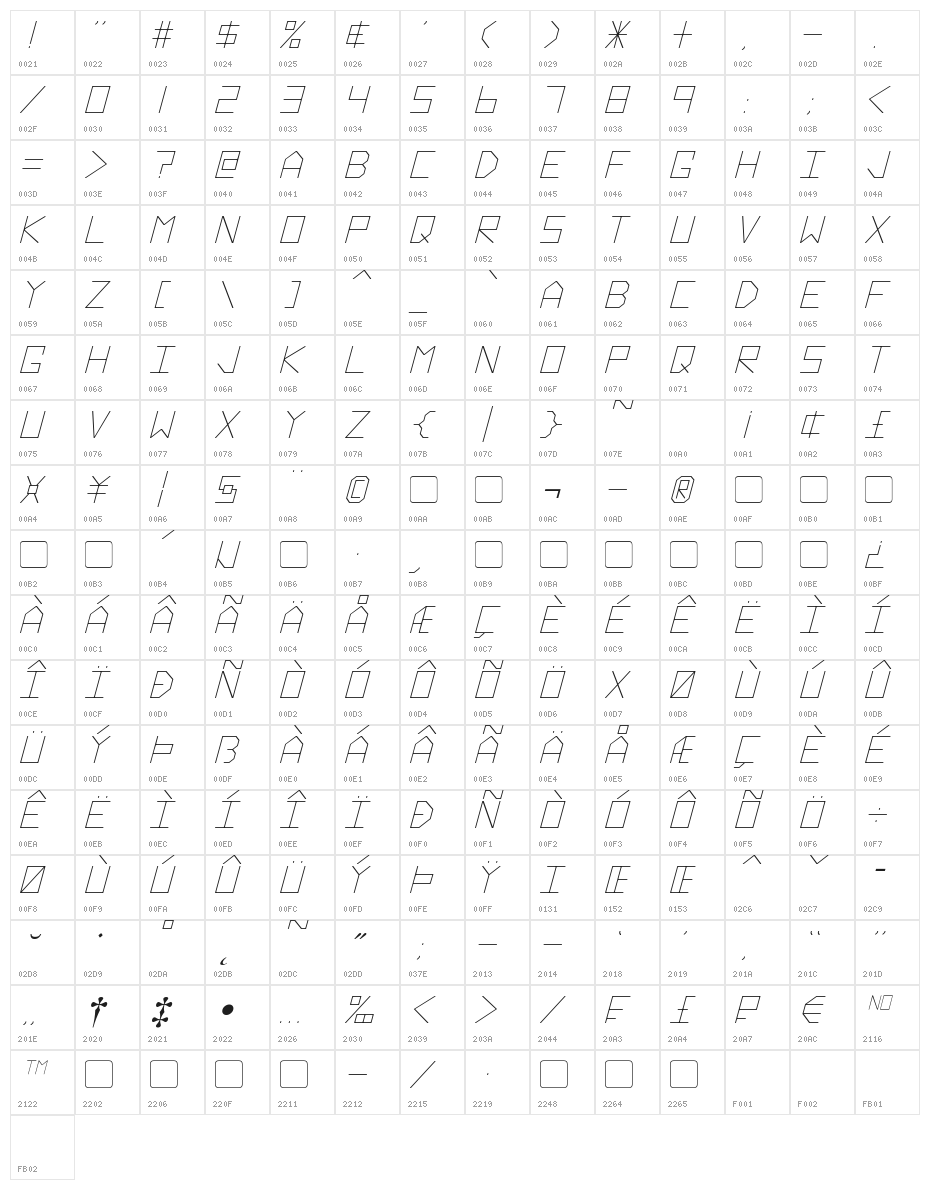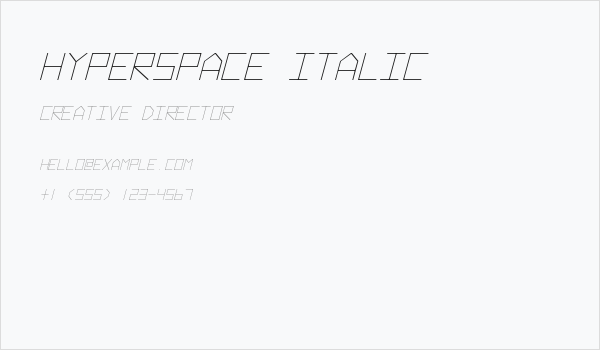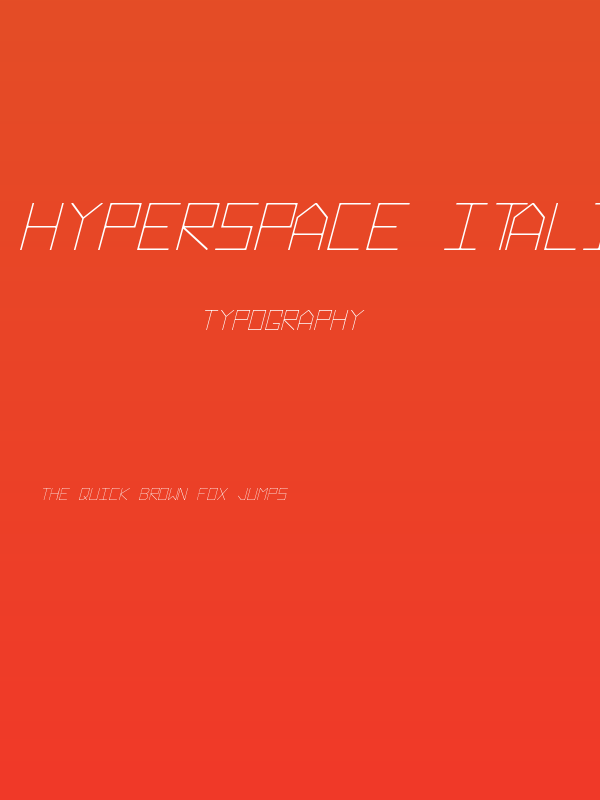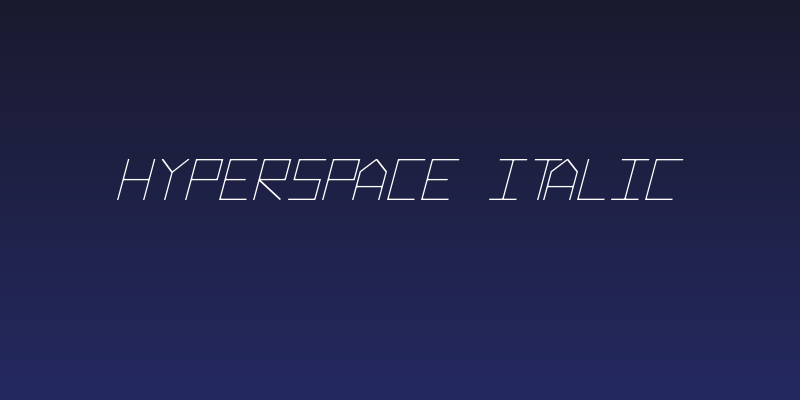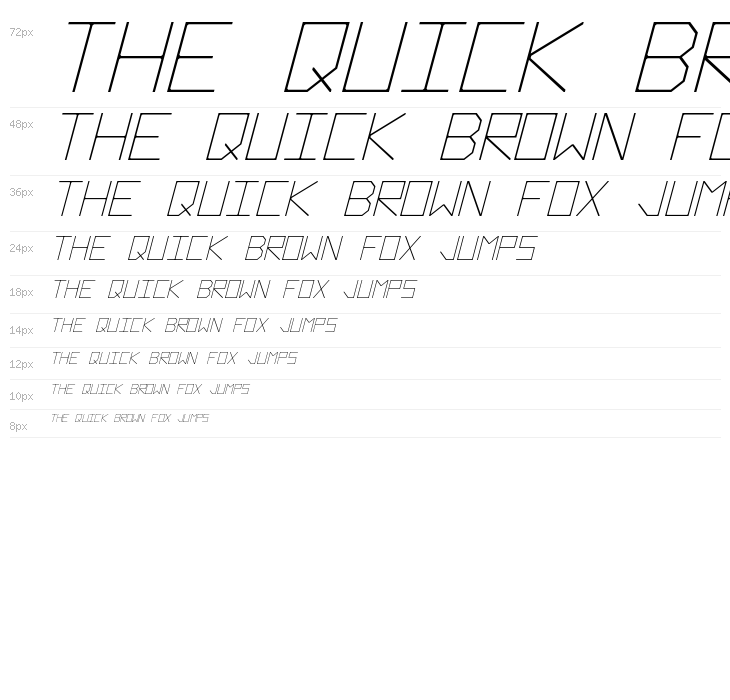
Hyperspace Italic Font
Hyperspace Italic Description
This font features a futuristic and angular design with a distinct italic slant, giving it a dynamic and forward-moving appearance. The characters are constructed with straight lines and sharp angles, creating a geometric and technical look. The uppercase and lowercase letters maintain a consistent style, with the uppercase being slightly more prominent. The numbers and special characters follow the same angular design, ensuring uniformity across the font. The overall aesthetic is sleek and modern, making it suitable for projects that require a contemporary and tech-inspired feel.
Proposed ProjectsIdeal for sci-fi themed designs, technology branding, video game interfaces, and modern posters.